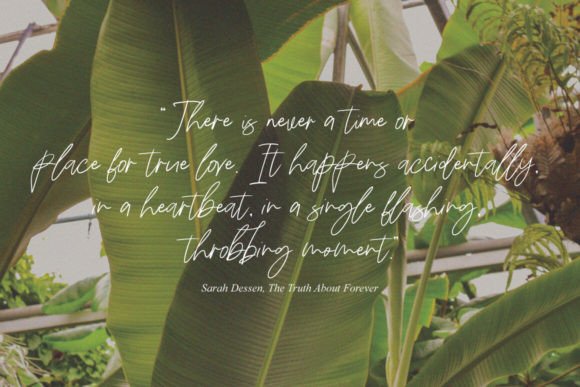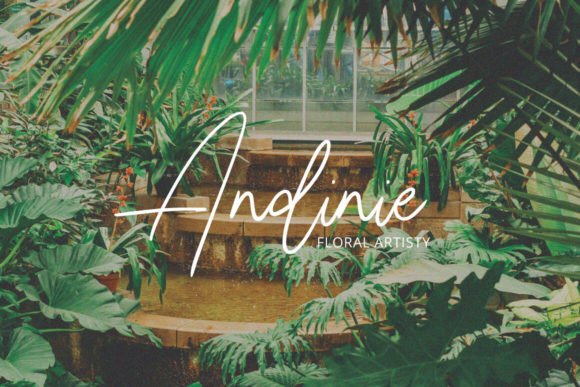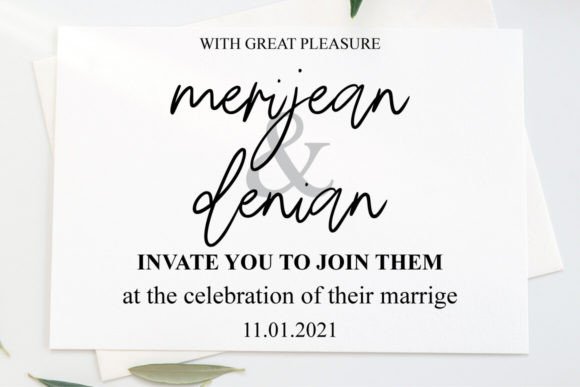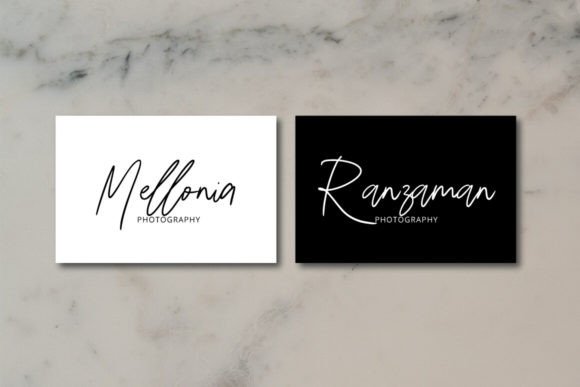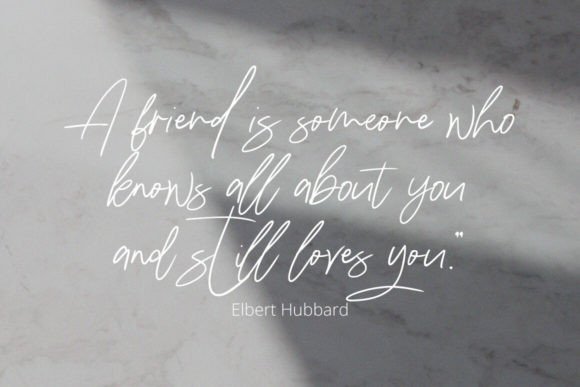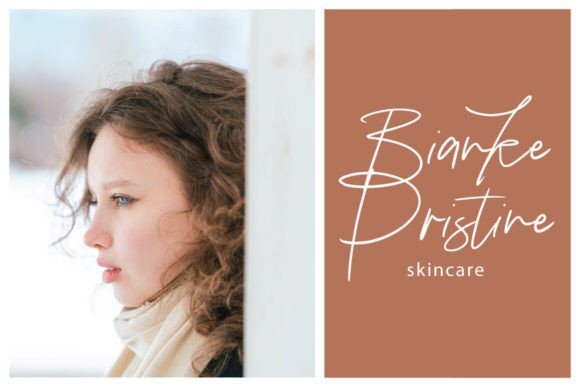
Introduction to Grimetta Signature Font
Grimetta Signature with a handmade Signature style, decorative characters, and a dancing baseline.
So beautiful on invitations like greeting cards, branding materials, business cards, quotes, posters, and more Grimetta Signature comes with 200+ glyphs.
Grimetta Signature Font offers exceptional quality and versatility, making it a valuable addition to your design toolkit. Whether you’re creating for personal projects or commercial use, Grimetta Signature Font delivers professional results.